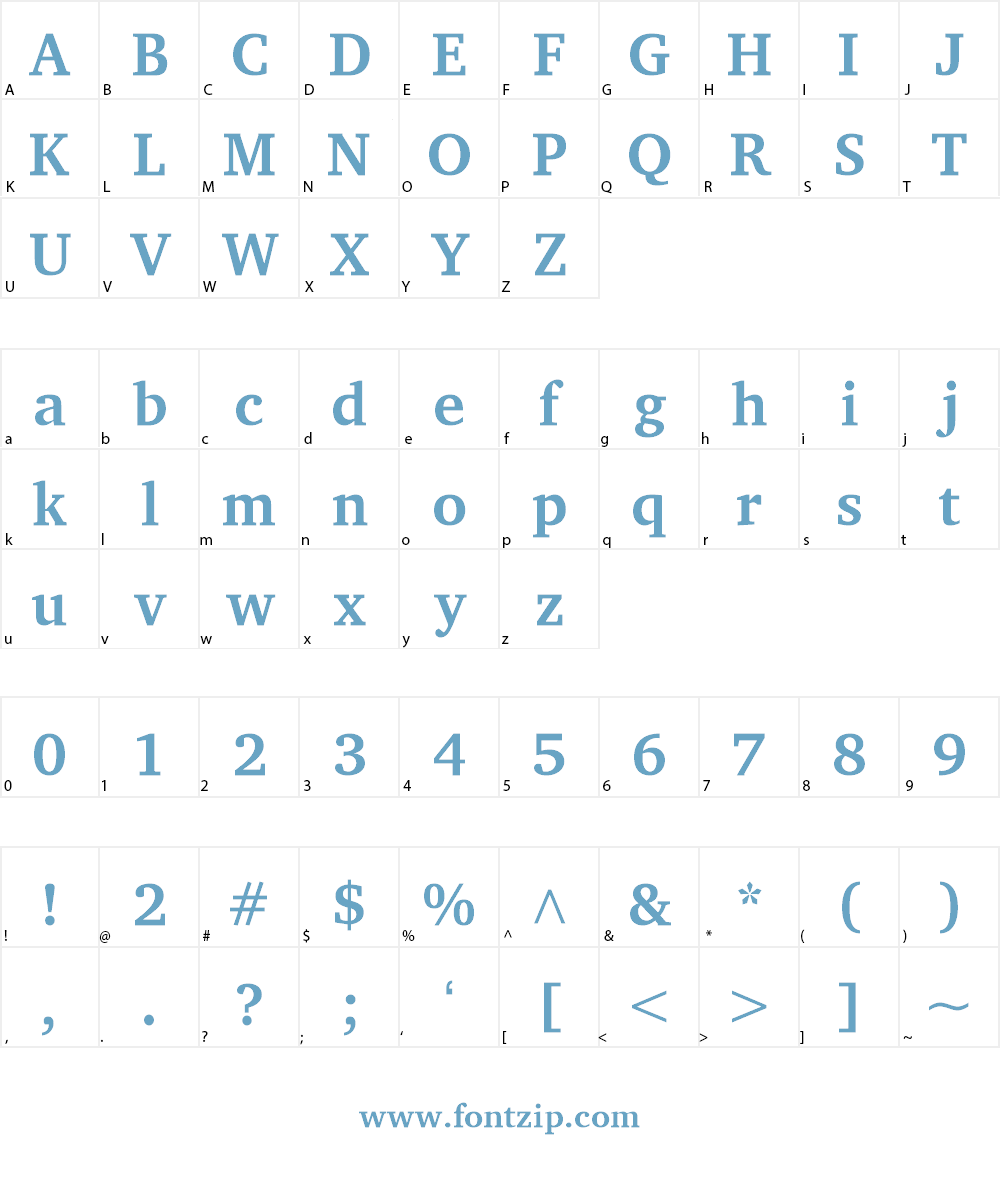
The Apparatus SIL fonts are the Unicode version of their predecessor, SIL Apparatus. The design is the same, only the encoding is different. The Apparatus SIL fonts were designed to provide most of the symbols needed to reproduce the textual apparatus found in major editions of Greek & Hebrew biblical texts.
These fonts were based on SIL Charis, a font designed for optimum clarity and compactness when printed at small point sizes. This assures that both Charis SIL and Apparatus SIL can be used together in documents with a consistency of style.
Most lines of text in the apparatus can be reproduced by combining the Greek and Hebrew fonts, transliteration (using a font such as Charis SIL), and the Apparatus SIL font.